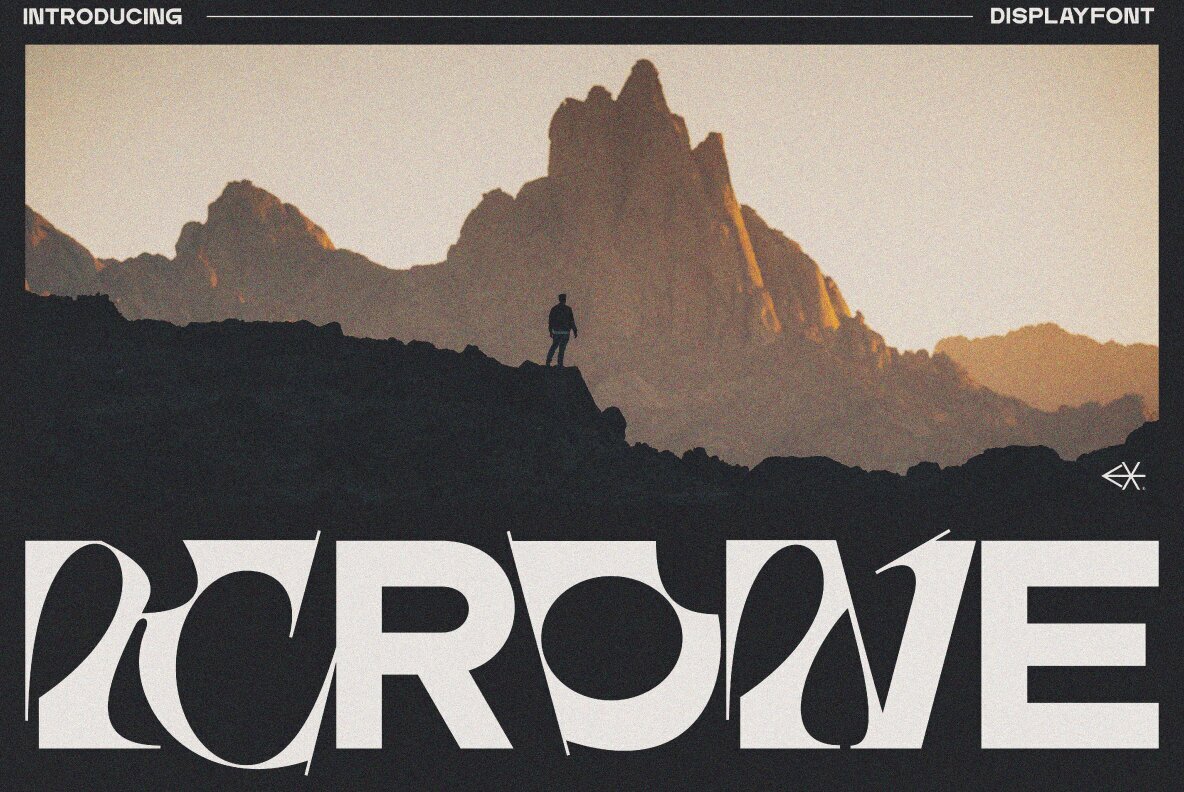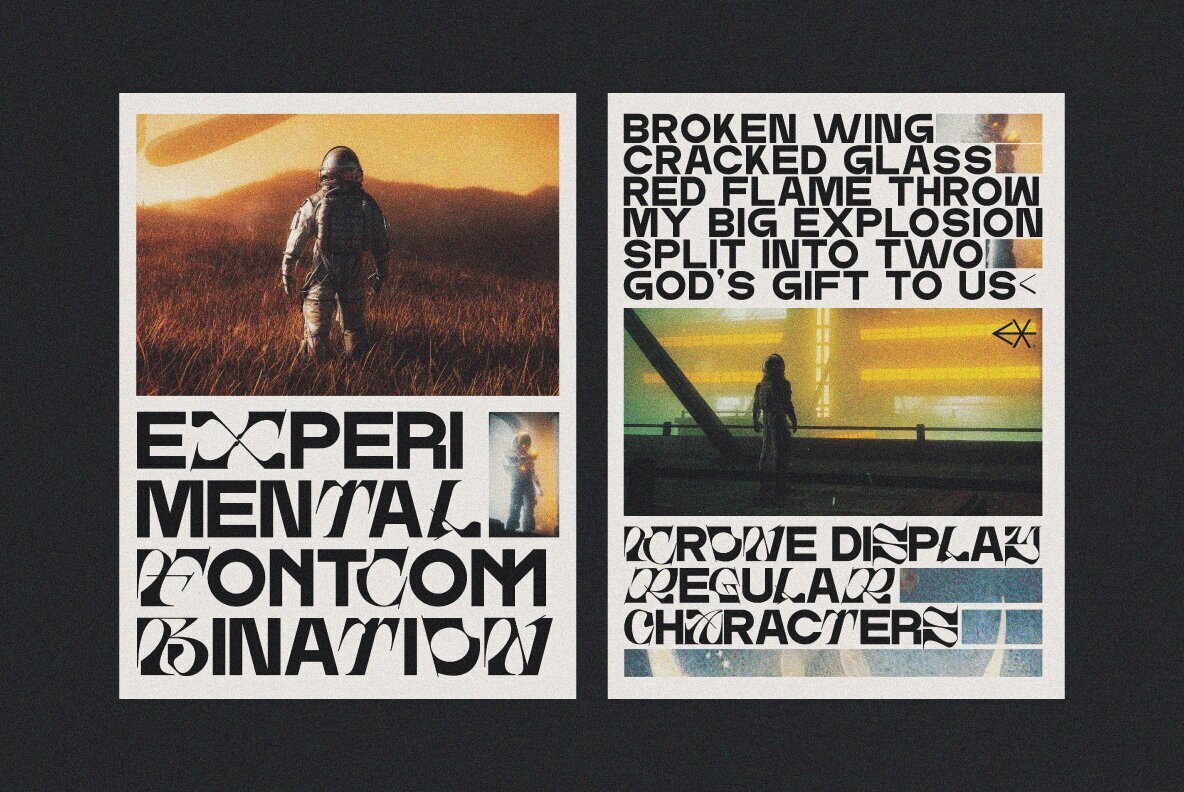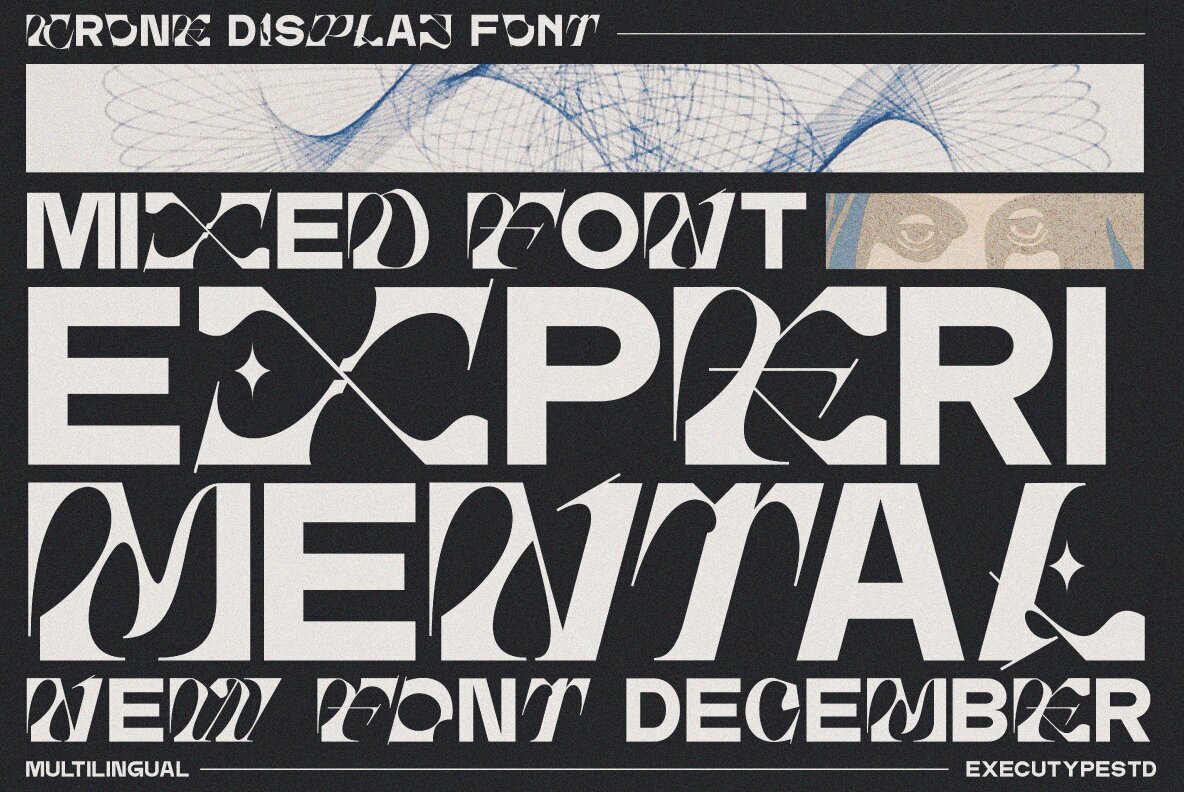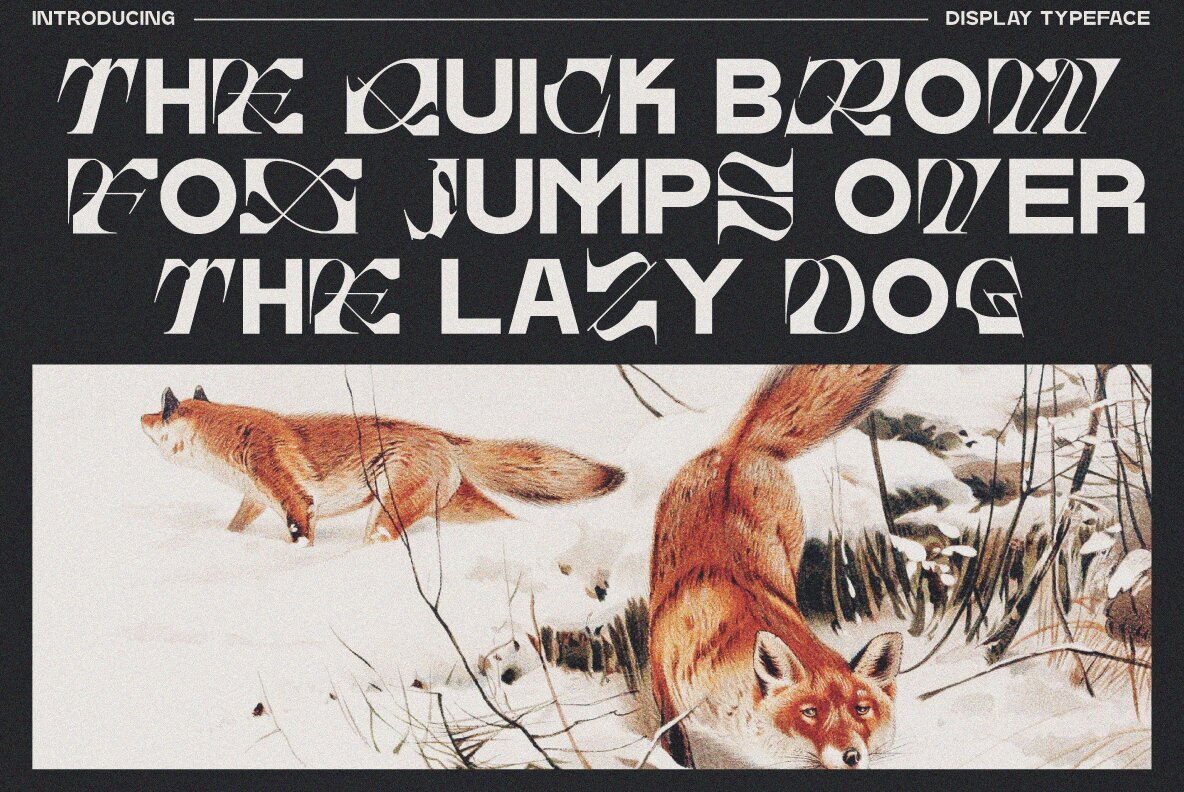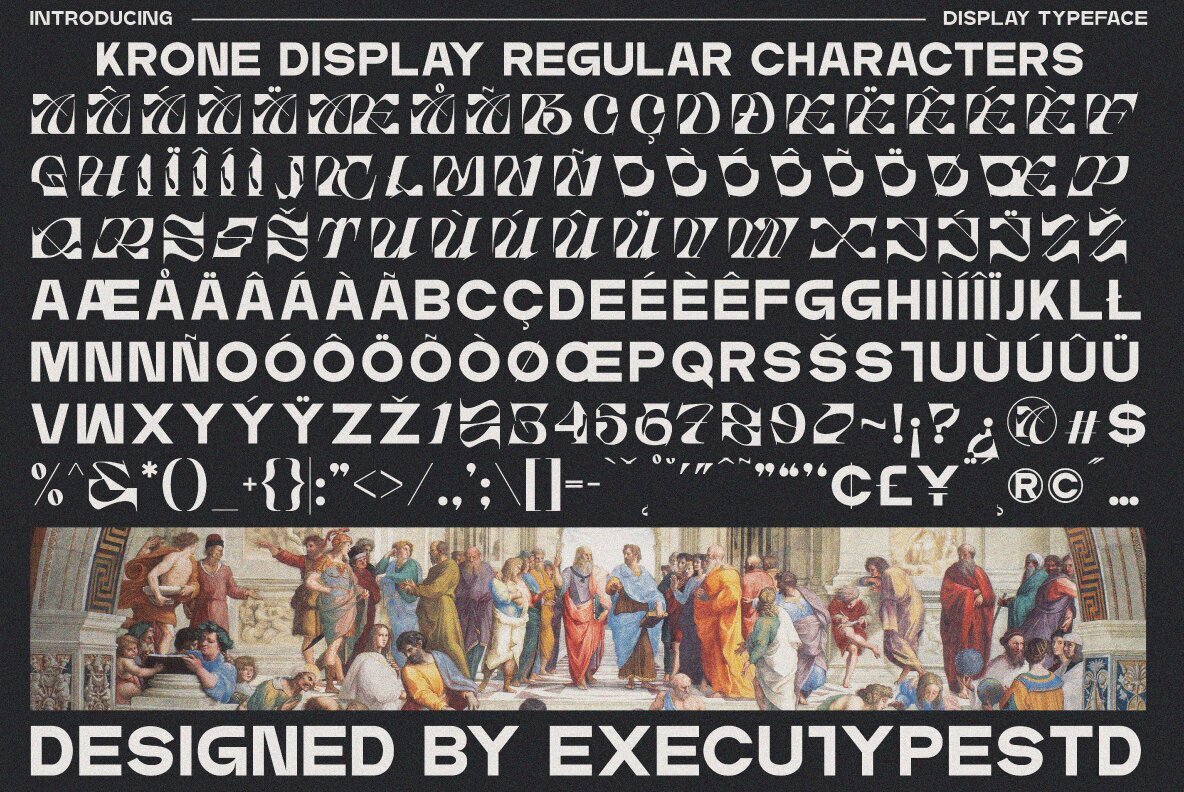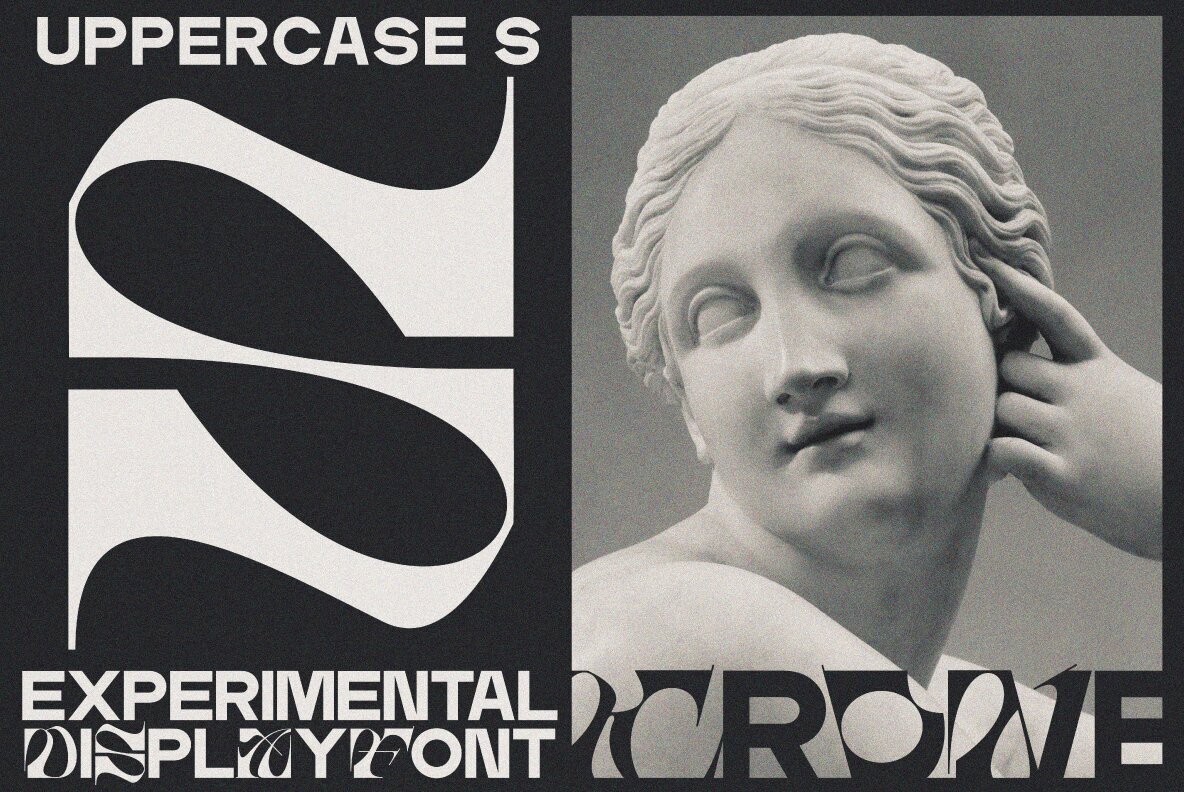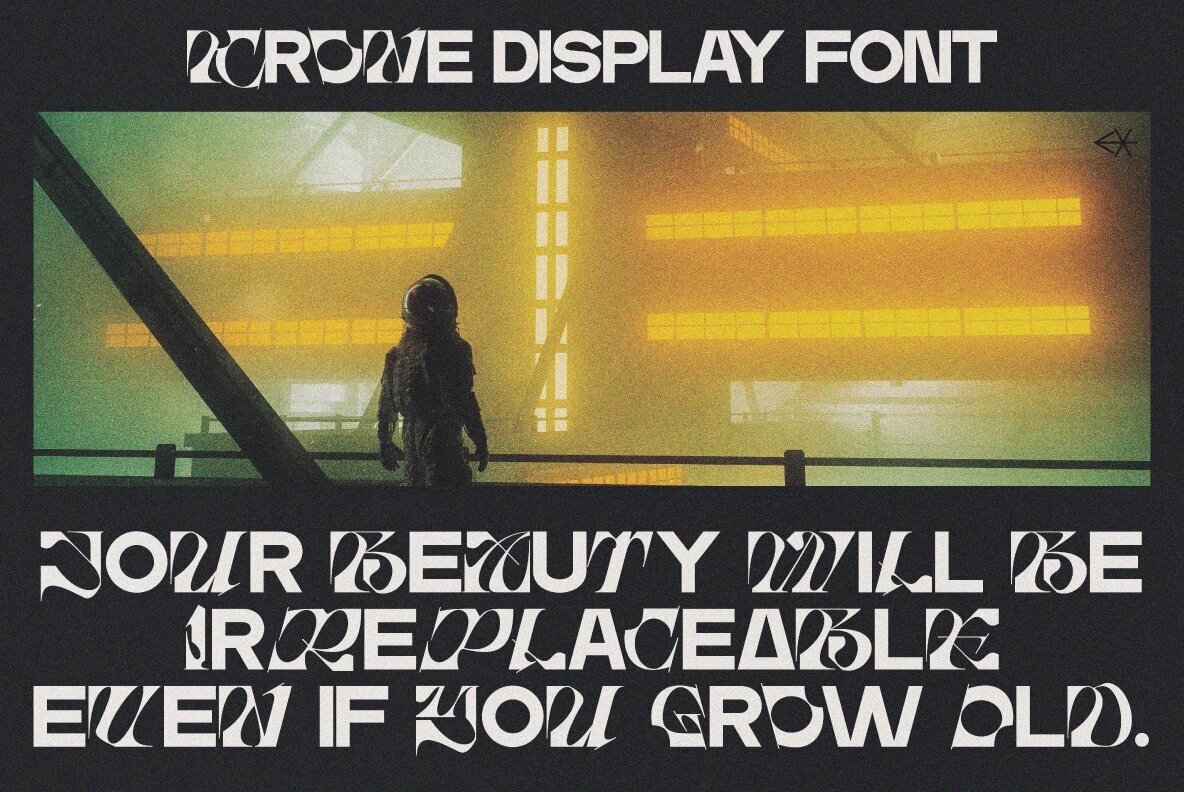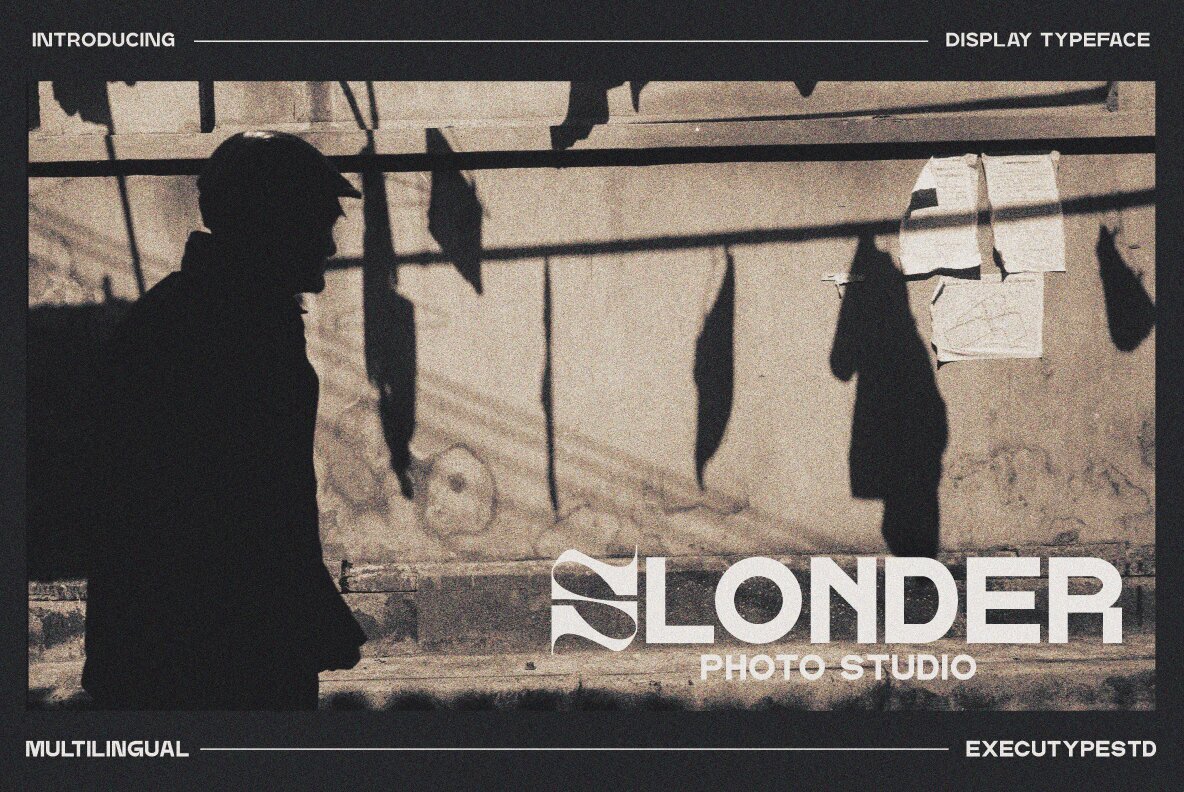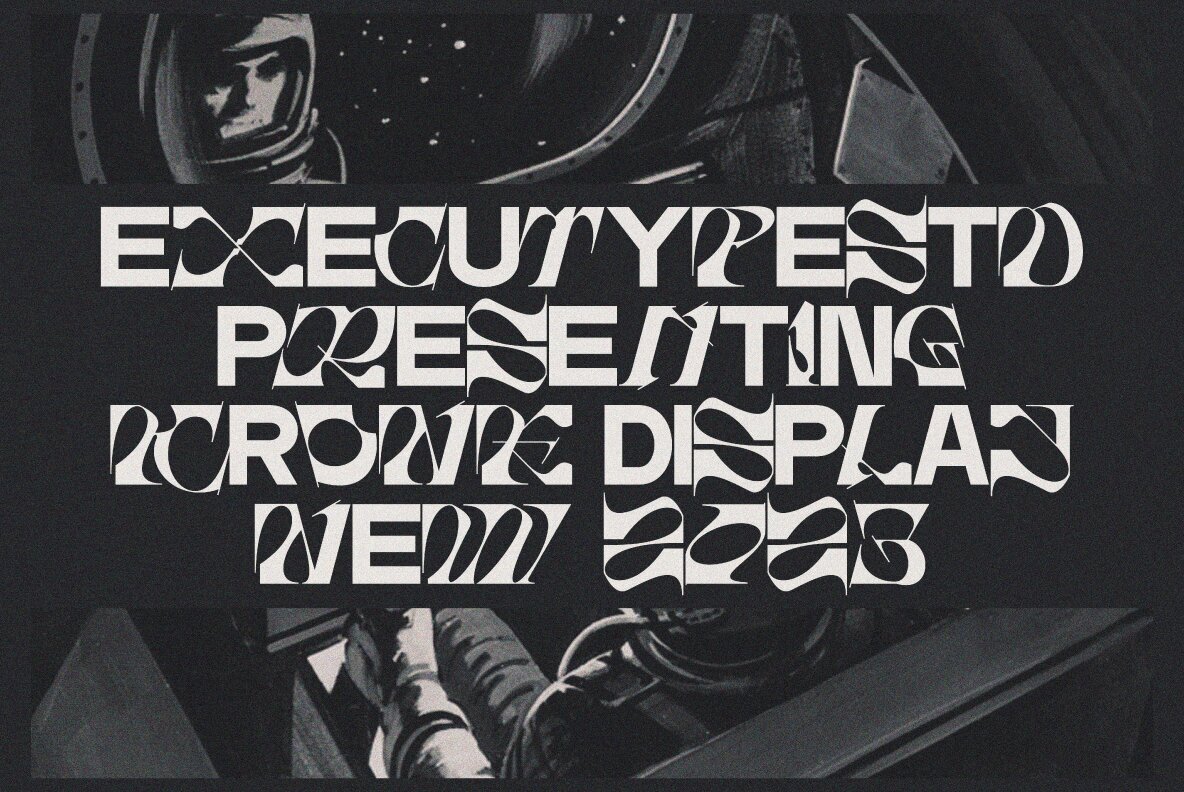
Krone Font
Krone Display Regular
Embark on a creative journey with Krone Mixed Font, an experimental typography collection that artfully merges three distinct stylistic approaches. This font ensemble offers a unique visual identity, ideal for designers seeking to infuse originality into their work. Embrace its versatility to enhance designs ranging from posters to branding, and even book layouts. Equipped with an array of features such as alternative characters and ligatures, Krone Mixed Font provides extensive multilingual support. This enriches its functions to adapt effortlessly to various design tools, ensuring seamless use in diverse projects.Krone Mixed Font: A Fusion of Styles